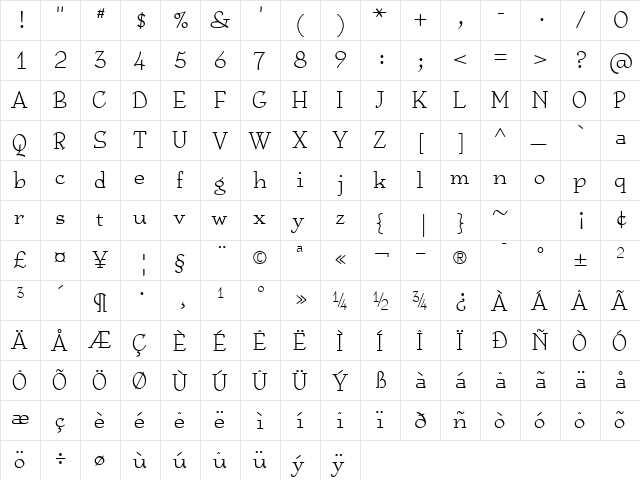
Anarckhie Regular
Design Context for Anarckhie Typeface
Anarckhie is a composed and adaptable typeface that performs quietly and consistently across a wide range of design contexts.